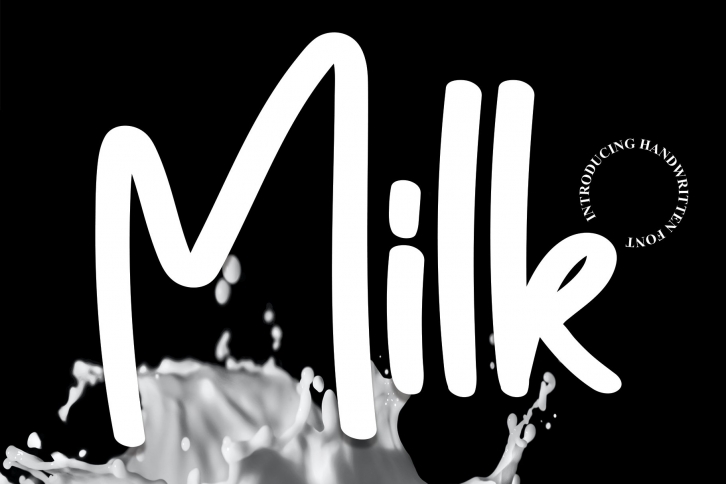
Milk is a beautiful font that was designed by Scratchones. It's a great choice for designers and creatives who need such a font. It was released on October 10, 2022 and the file size is 4.92 MB. Milk may give a more youthful, expressive and casual look to your project. It is a very beautiful, refined, elegant, and high-quality font.